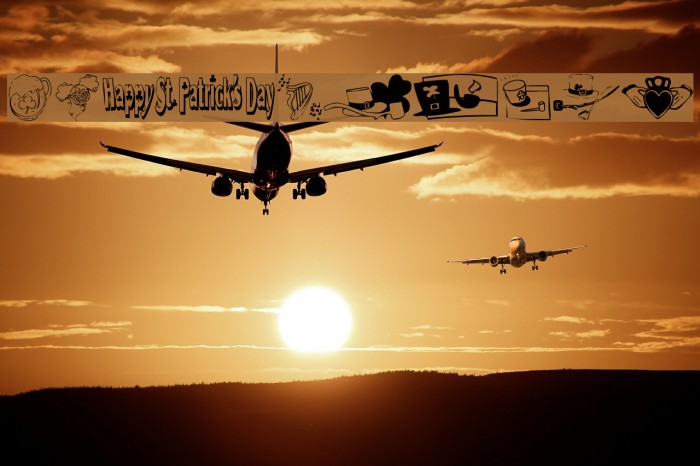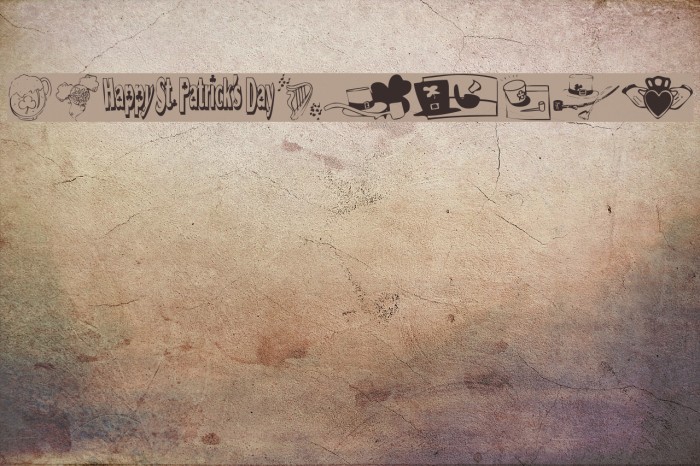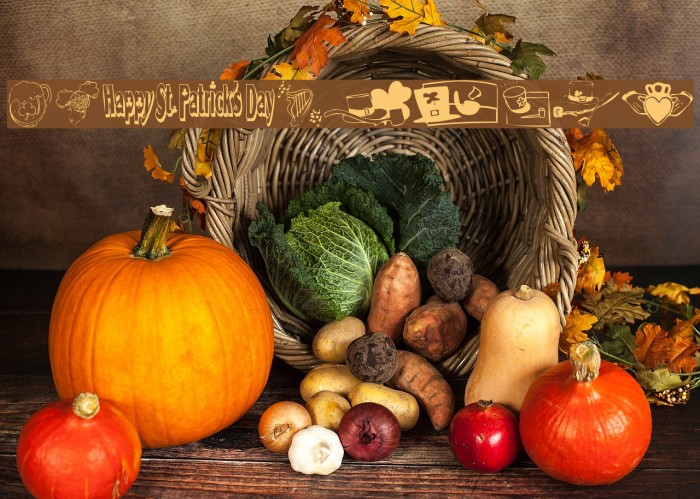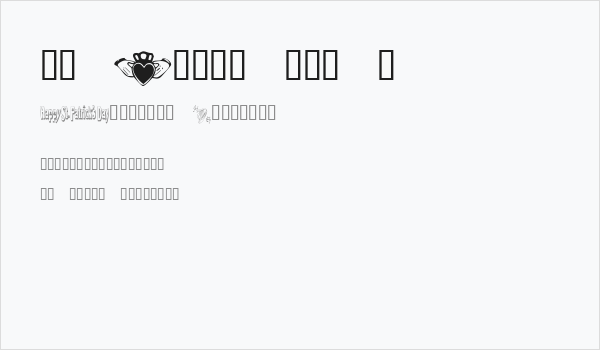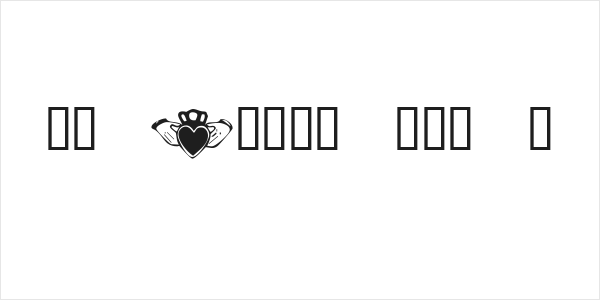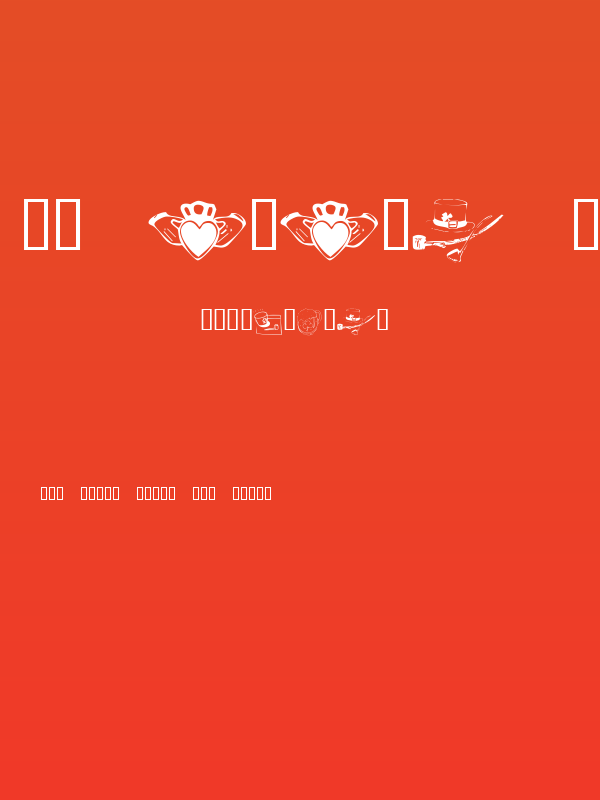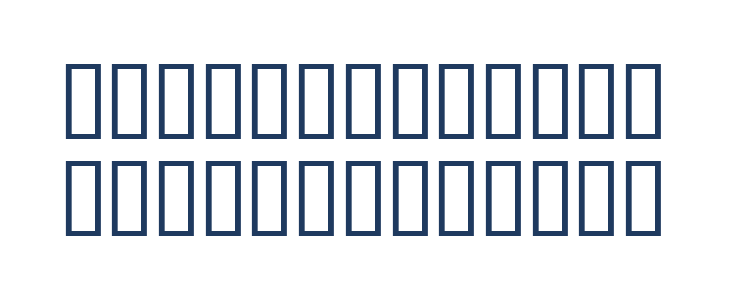
KR Irish Kat 5 Font
KR Irish Kat 5 Description
This is not a valid font. The image contains decorative elements and symbols related to St. Patrick's Day, such as shamrocks, leprechauns, and other themed graphics. These elements are not part of a standard alphabet or character set and do not represent a functional typeface.
| Use Case | Decorations, Themed graphics |
| Proposed Projects | This design could be used for St. Patrick's Day decorations, party invitations, or themed event posters. |